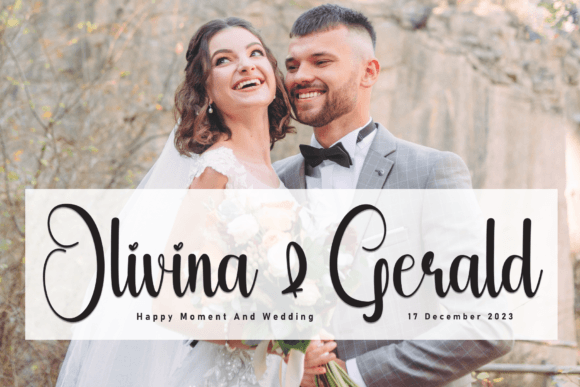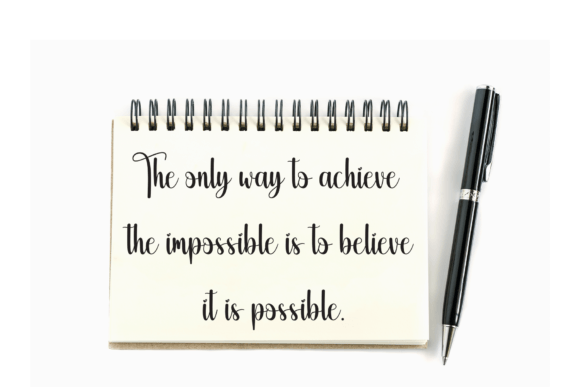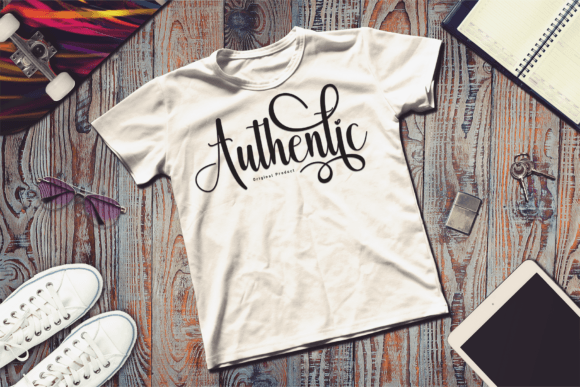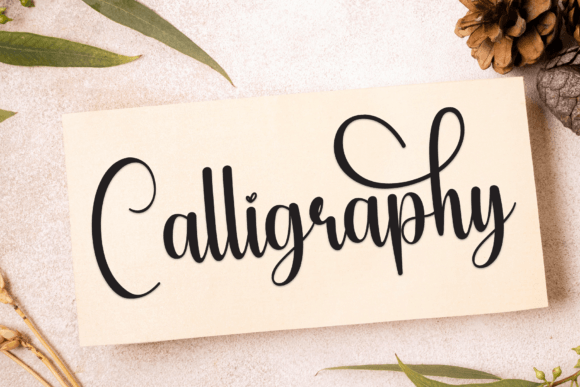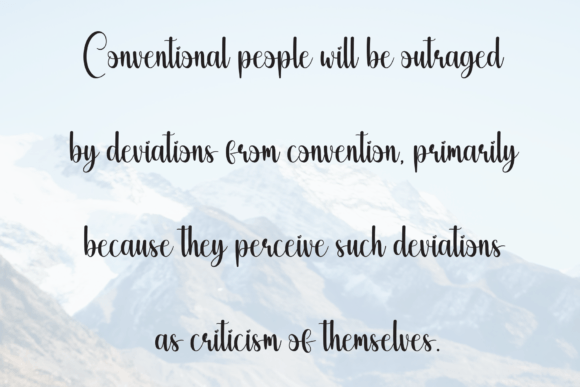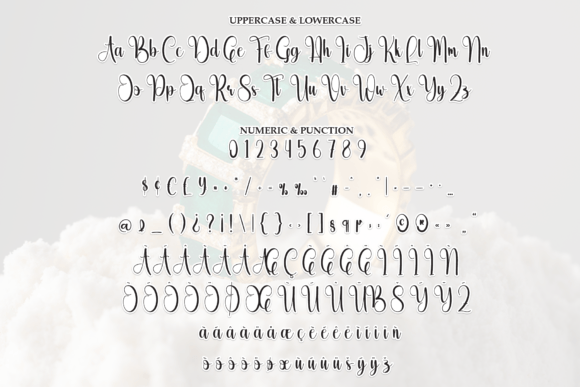
The Sweet Charm of Emerald Font: A Designer’s Delight
I still remember the time I was working on a wedding invitation project, and I just couldn’t find the right font to capture the warmth and elegance of the occasion. My client wanted something that felt personal, yet sophisticated. After hours of scouring through font libraries, I stumbled upon Emerald Font, and it was love at first sight! ✨ This sweet and friendly handwritten font has since become a staple in my design toolkit, and I’m excited to share its charm with you.
An Honest Review of Emerald Font
- ✨ Sweet and Friendly Vibe: Emerald Font exudes a warm, inviting feel that’s perfect for projects that require a personal touch.
- ✅ Versatility: This font is incredibly versatile, making it suitable for a wide range of design applications, from wedding invitations to social media graphics.
- 💕 Cute yet Elegant: Emerald Font strikes the perfect balance between playfulness and sophistication, making it ideal for designers who want to add a touch of whimsy to their work.
While Emerald Font is an excellent choice for many projects, there are a few things to keep in mind: 🤔
- ⚠️ Limited Character Set: Some users have noted that the font’s character set is not exhaustive, which might limit its use in certain projects.
- ⚠️ Not Suitable for Body Text: Due to its handwritten nature, Emerald Font is best used for headings, titles, or short paragraphs, rather than lengthy body text.
The Backstory of Emerald Font
Emerald Font was designed by a talented type designer who wanted to create a font that captured the warmth and elegance of handwritten script. Inspired by the beauty of nature and the charm of handwritten letters, Emerald Font was born. 💚
Q: Is Emerald Font suitable for body text?
A: No, Emerald Font is best used for headings, titles, or short paragraphs due to its handwritten nature.